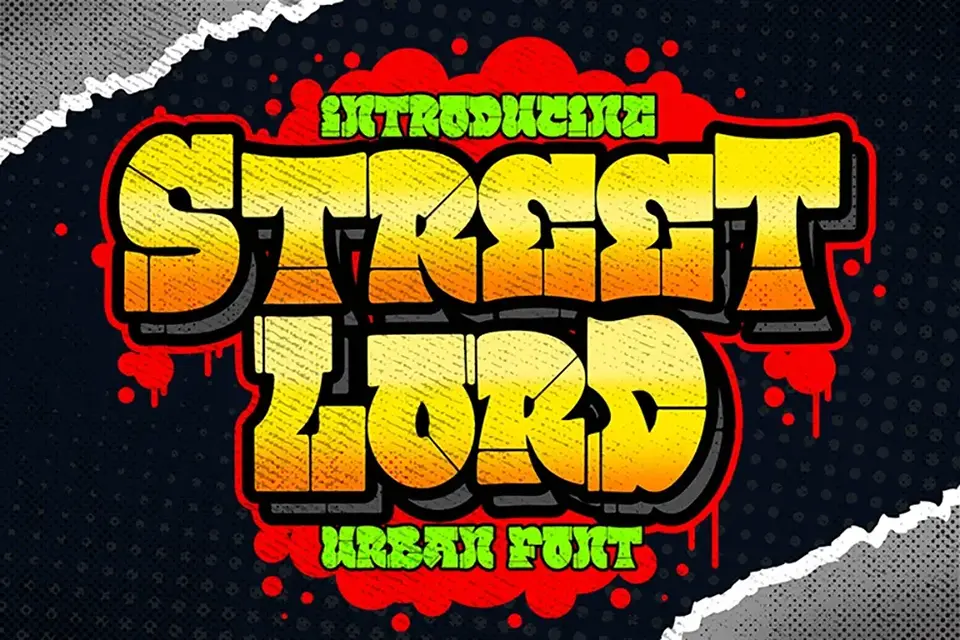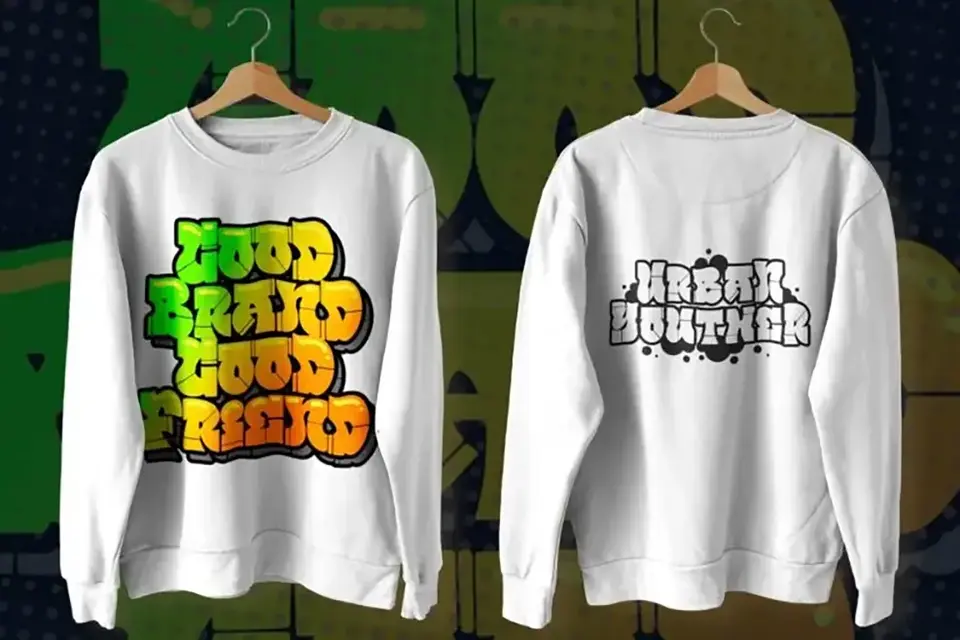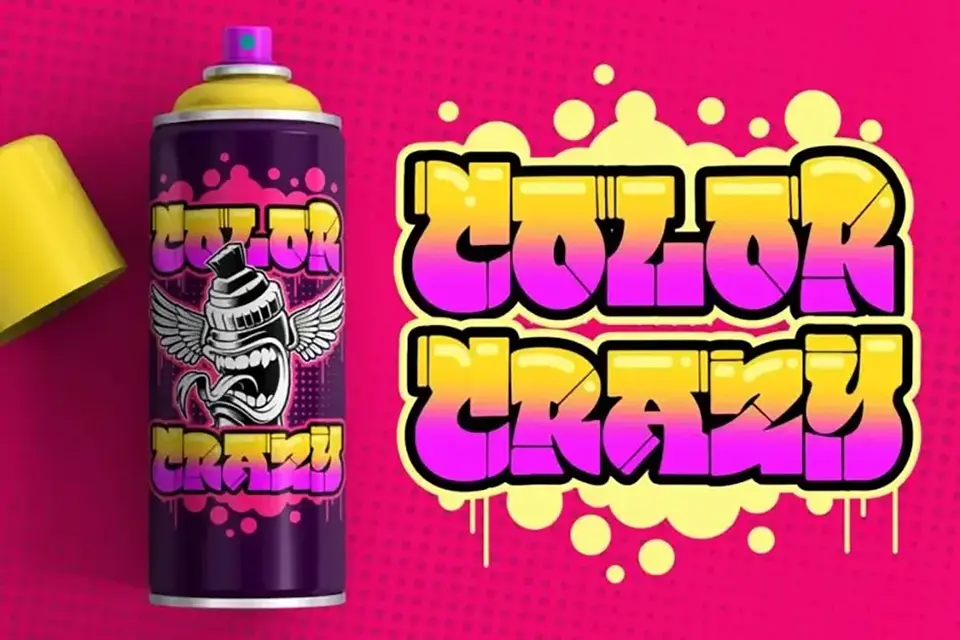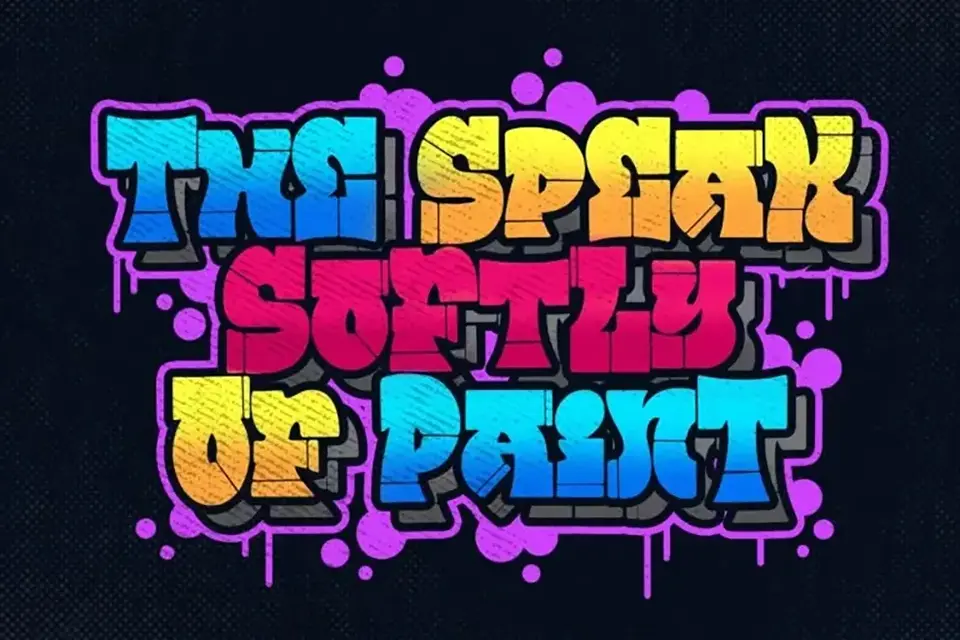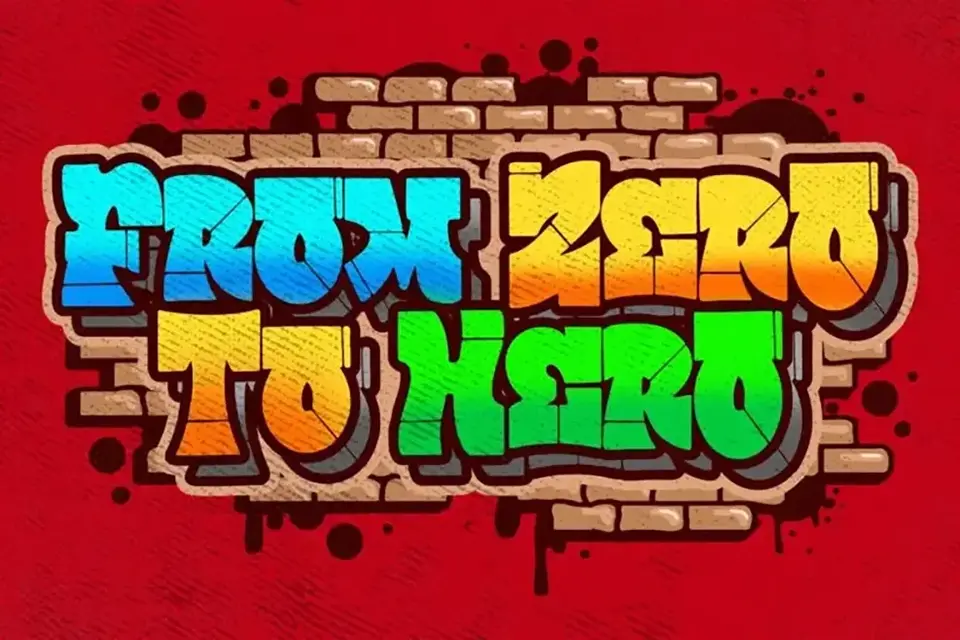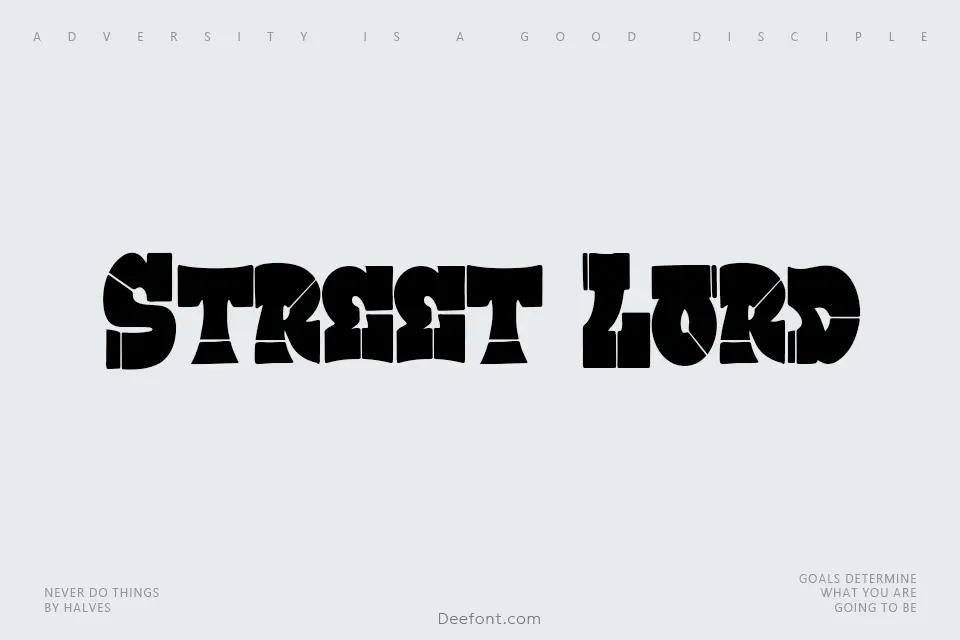
Street Lord Font
Street Lord is a dynamic and visually striking graffiti-inspired display font that brings vibrant street culture energy to contemporary design projects. Created by Blankids Studio, this typeface features bold, impactful letterforms with unique urban styling perfect for youth-oriented designs, event posters, music covers, album artwork, apparel printing, invitations, banners, and advertisements. The font delivers retro-inspired characters with an energetic appearance ideal for hip-hop aesthetics, kids’ posters, flyers, cartoons, and comic projects seeking authentic street culture aesthetics.